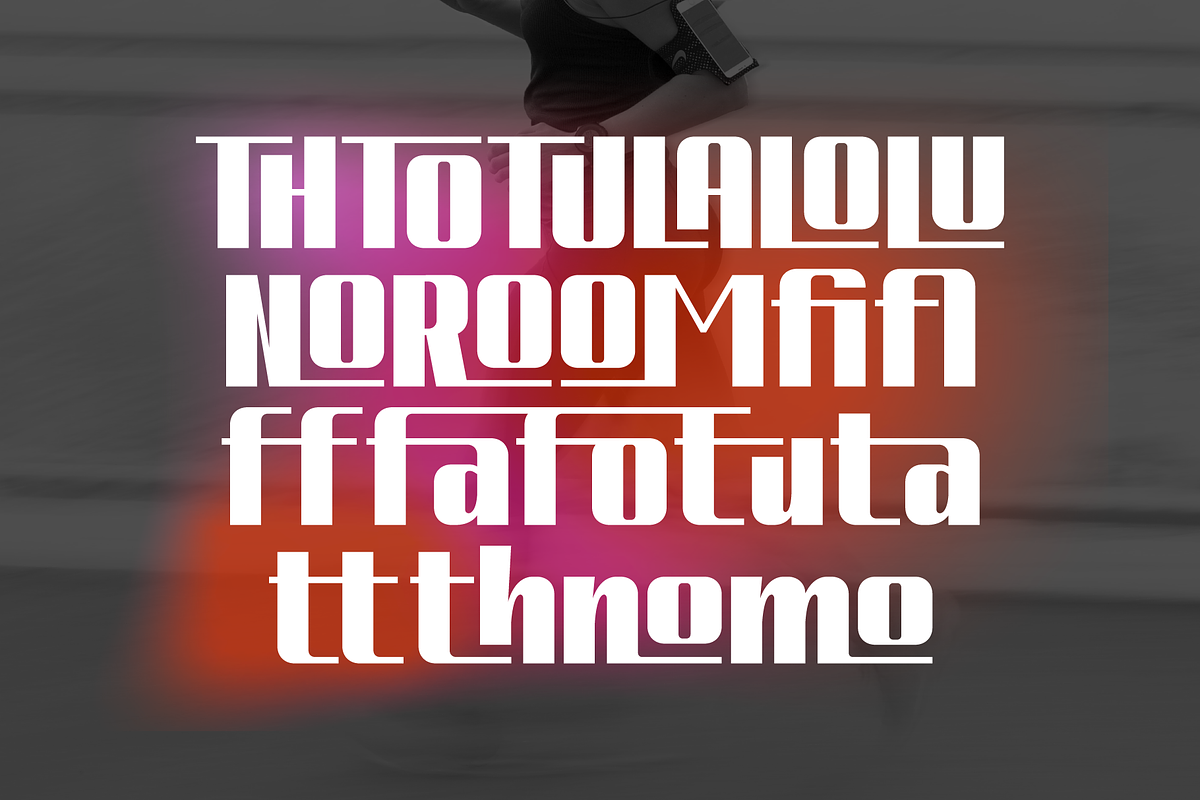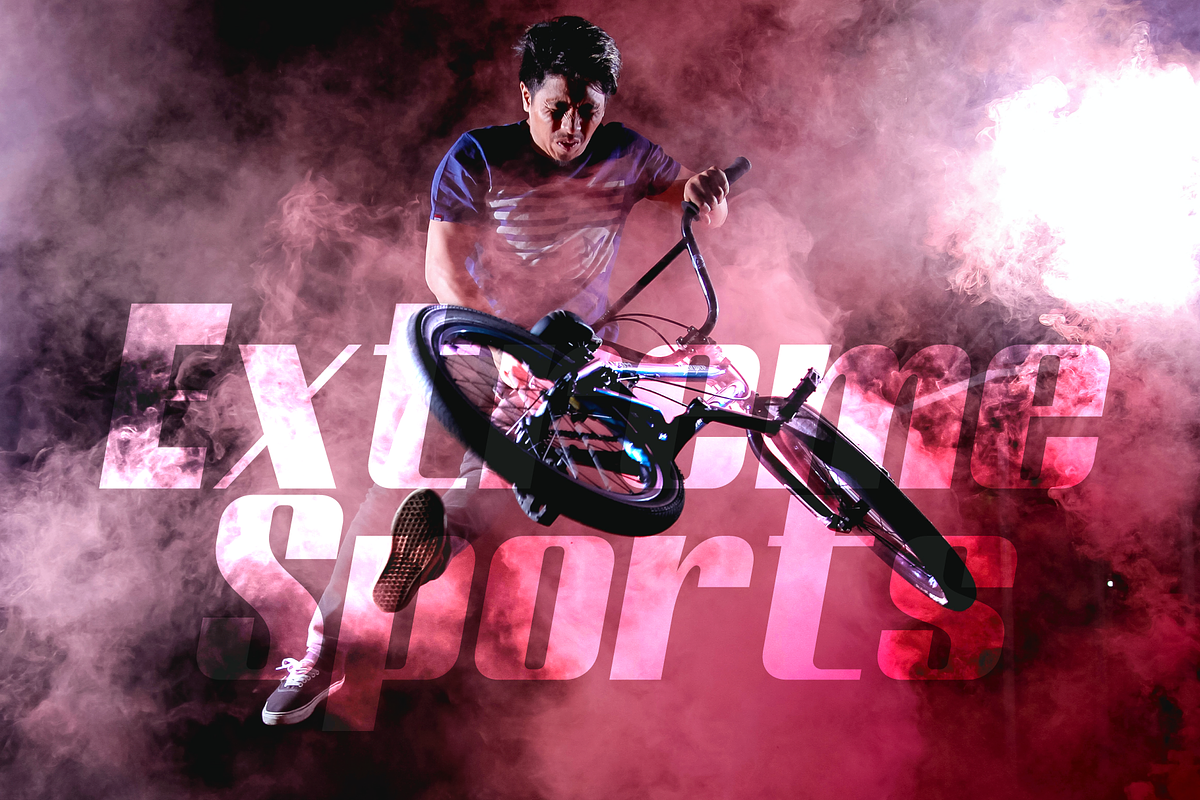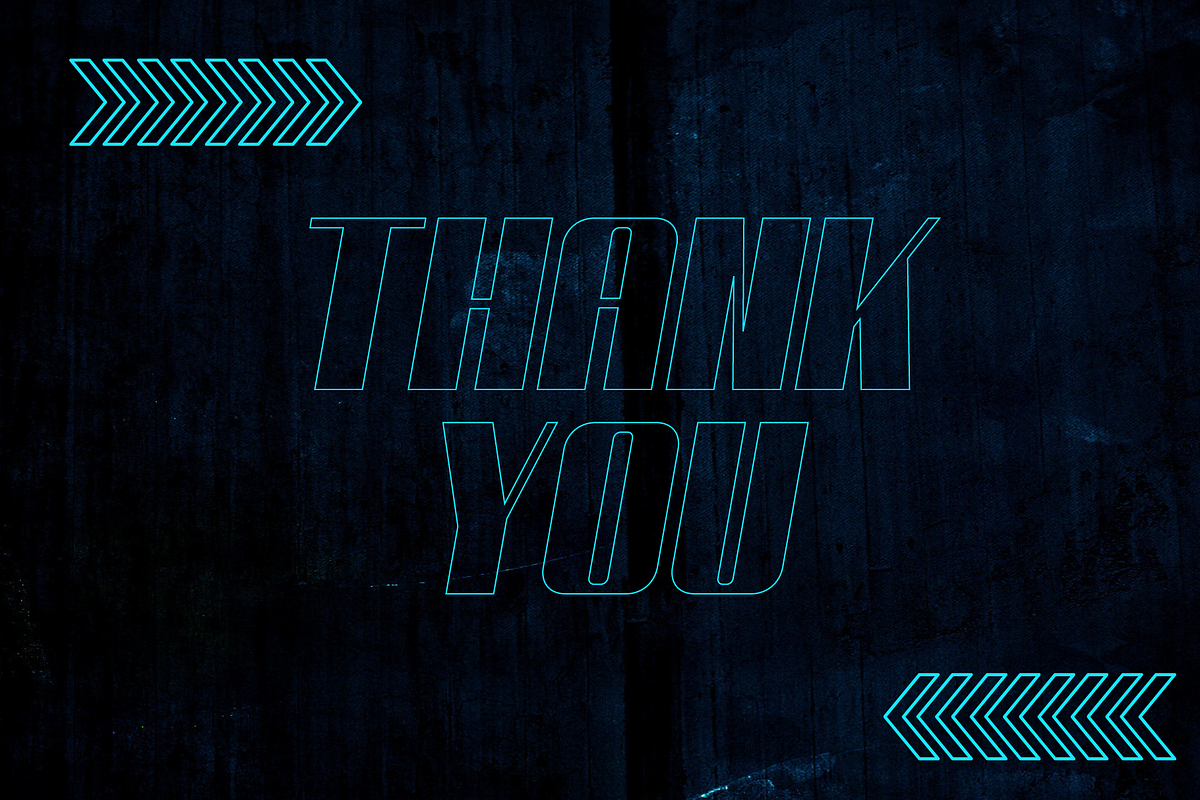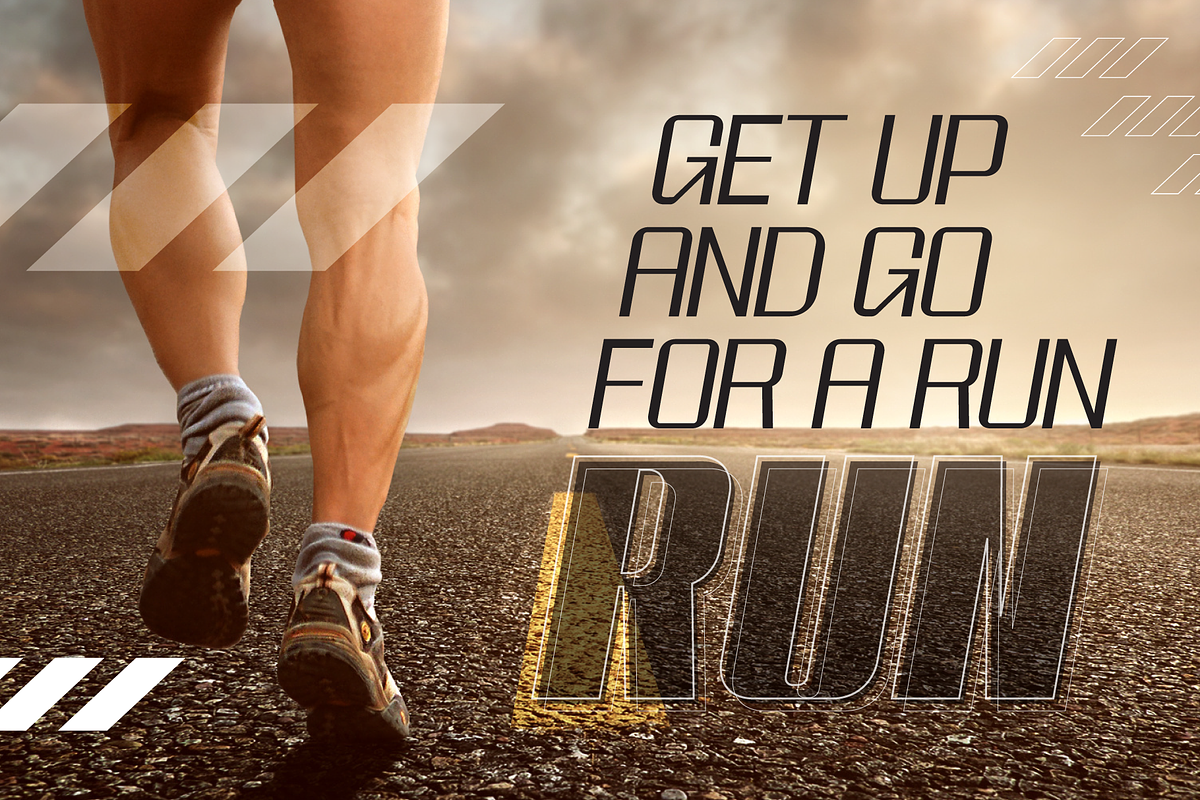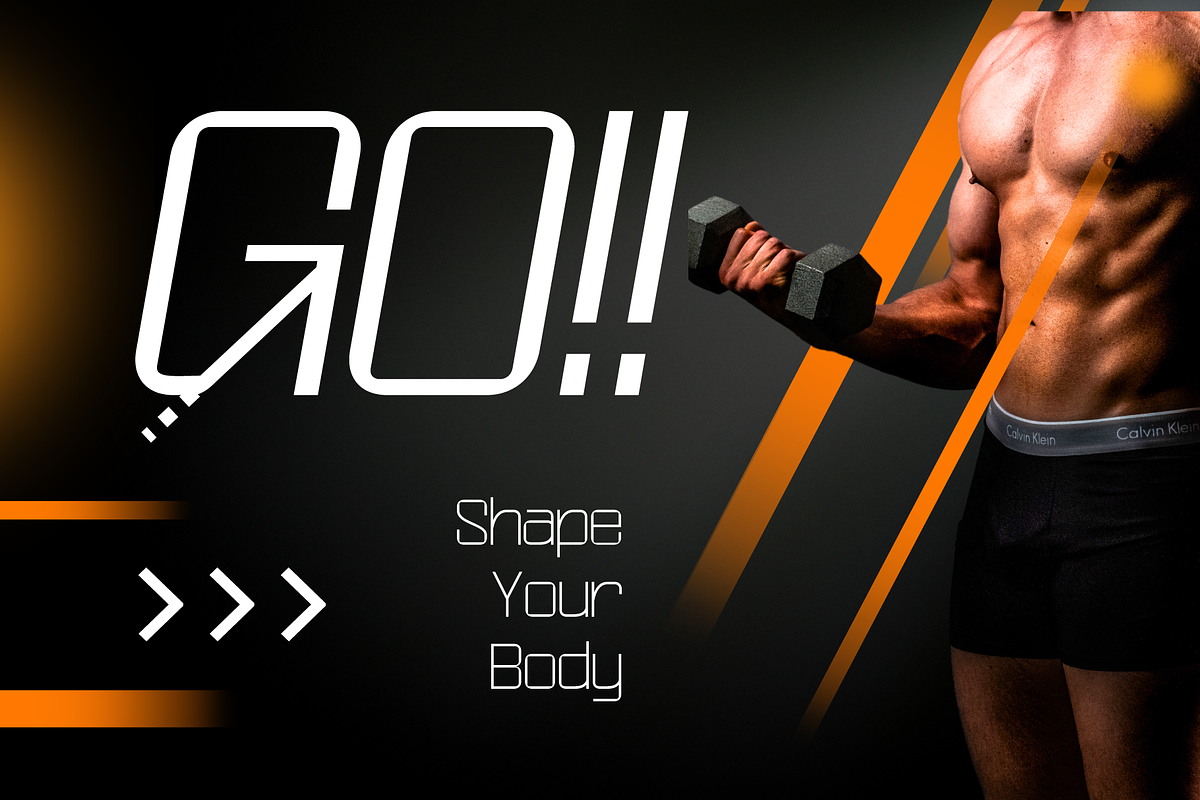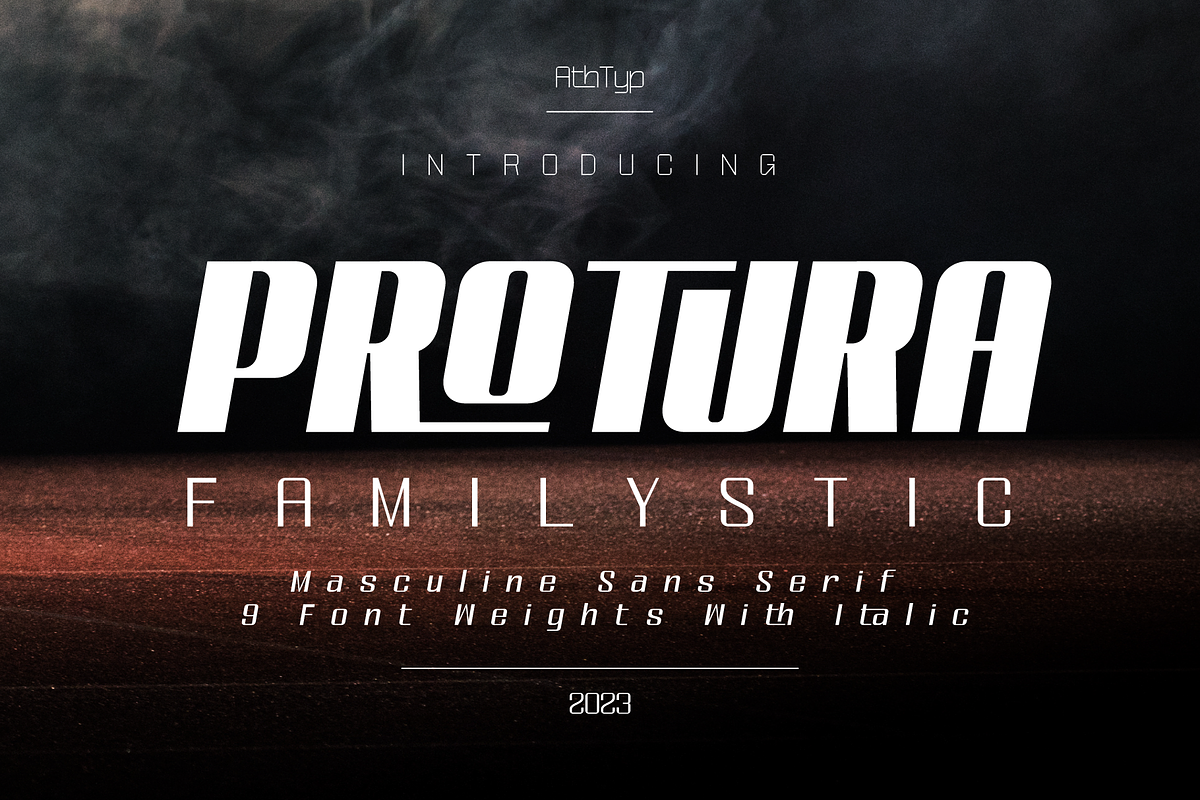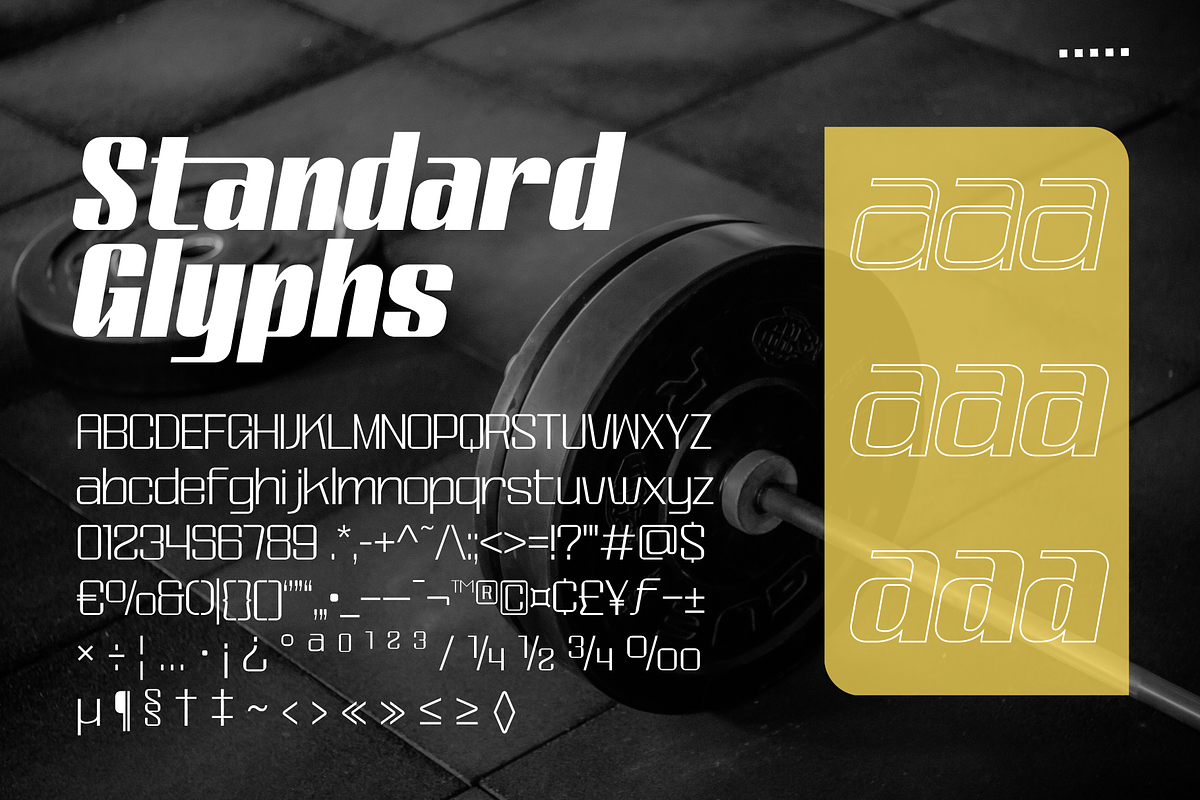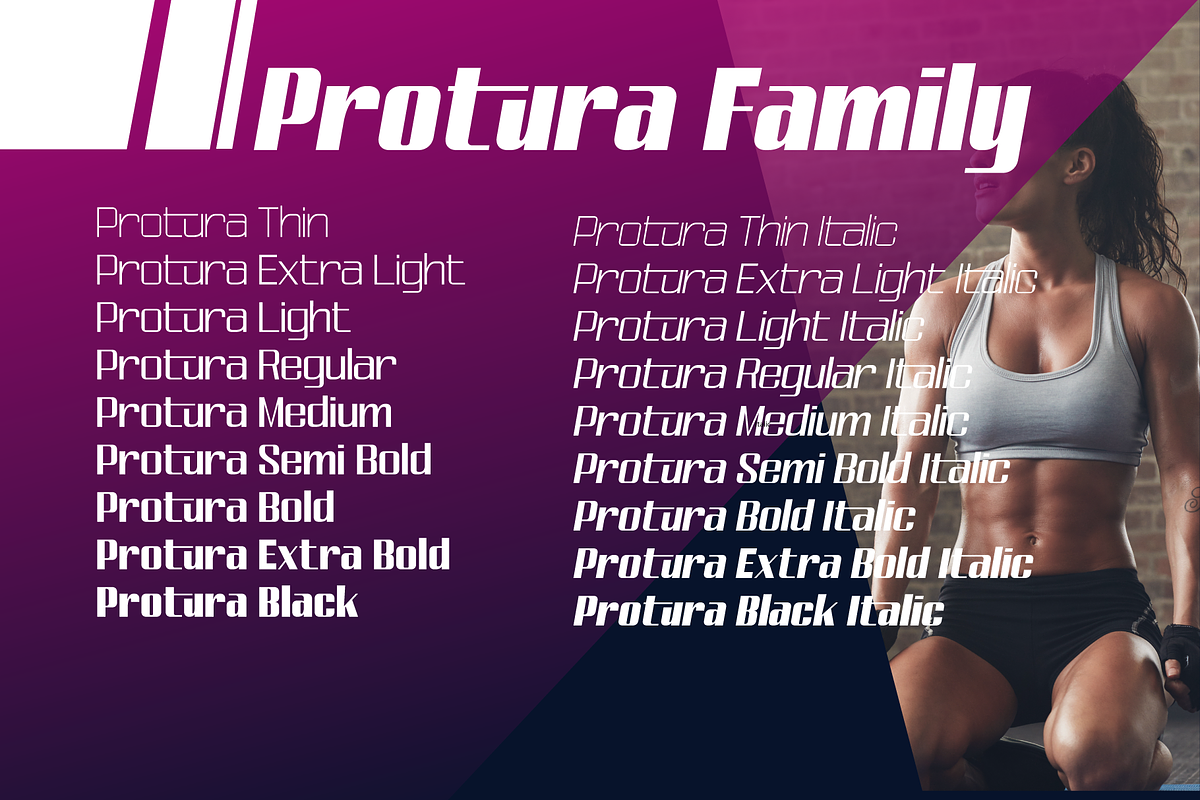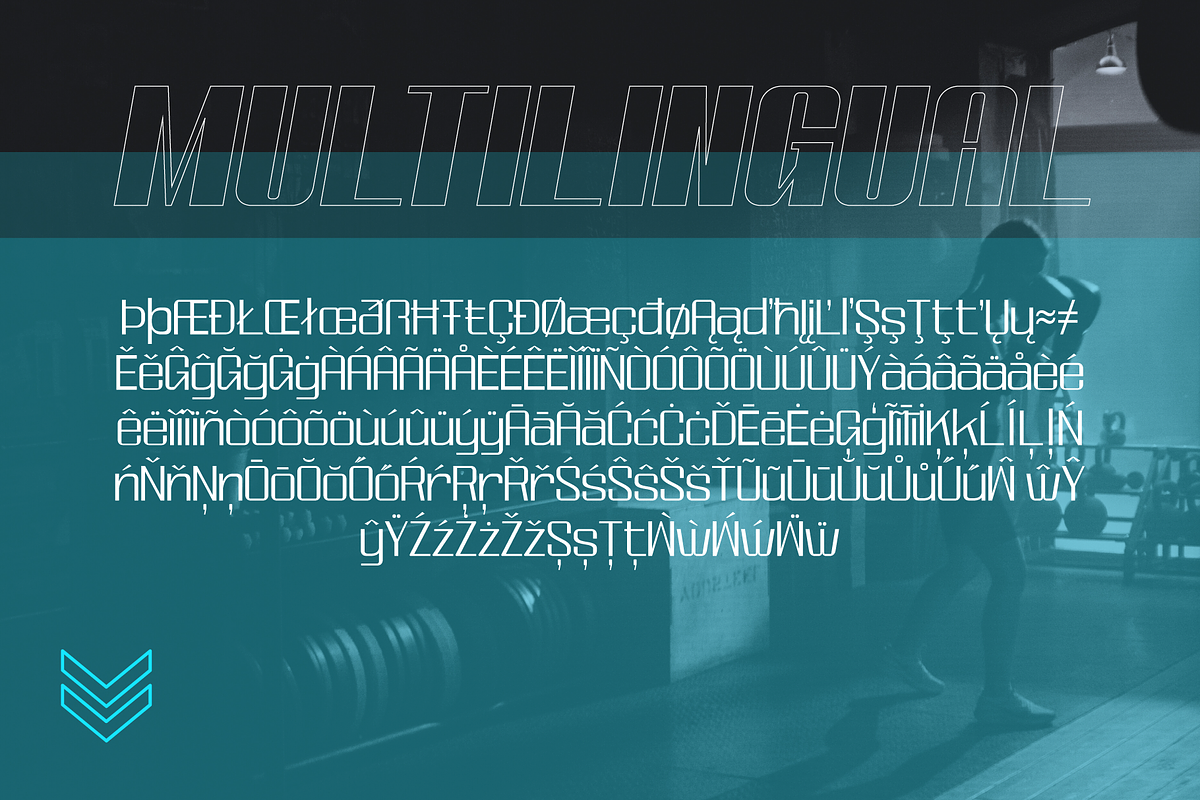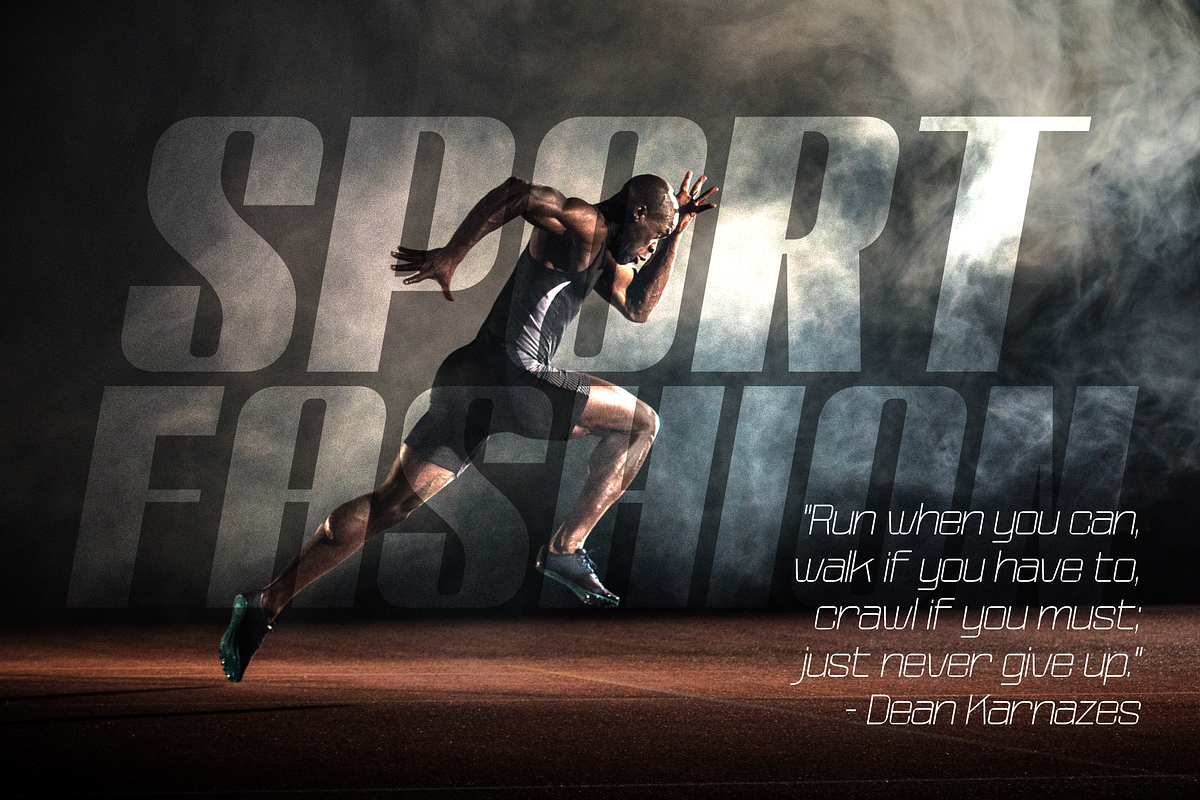
Protura Sans Serif Masculine
Protura Sans Serif Masculine - 9 Font Weights With Italics"
Introducing Protura Sans Serif Masculine, a versatile and powerful font family designed to make a bold statement in your creative projects. With nine distinct font weights and accompanying italics, Protura offers unmatched flexibility for all your design needs.
Nine Font Weights: Protura Sans Serif Masculine boasts an extensive range of weights, from Light to Ultra Bold. Whether you're crafting a subtle headline or a powerful logo, you'll find the perfect weight to convey your message.
Italics Included: In addition to the standard weights, Protura also provides elegant italic versions for each weight. These italics add a touch of sophistication to your typography, making it ideal for editorial work and branding projects.
Masculine Aesthetic: Protura's design exudes strength and masculinity, making it an excellent choice for projects aimed at a bold and assertive audience. Its clean lines and sharp edges give your text a contemporary and impactful look.
Versatile Usage: This font family is highly adaptable, suitable for a wide range of design applications, including branding, packaging, editorial design, posters, websites, and more. It's a true workhorse font that performs well in various contexts.
Legibility: Protura prioritizes legibility without compromising on style. Its well-crafted letterforms ensure that your text remains clear and readable, even at small sizes.
OpenType Features: Take advantage of OpenType features such as ligatures and alternate characters to add subtle design nuances and improve overall visual appeal.
Multilingual Support: Protura Sans Serif Masculine supports a multitude of languages, making it a globally accessible font choice for your projects. Applications:
Branding: Create impactful logos and brand identities that leave a lasting impression. Editorial Design: Enhance the readability and visual appeal of magazines, newspapers, and books.
Web Design: Craft modern and engaging websites that resonate with your target audience. Packaging: Design packaging that stands out on the shelf and communicates product quality. Posters and Flyers: Grab attention with bold and stylish promotional materials.
Unleash the power of Protura Sans Serif Masculine to elevate your design projects with a masculine, contemporary, and highly versatile typographic solution. With its extensive weight range and italics, this font family empowers you to create impactful and visually stunning designs.